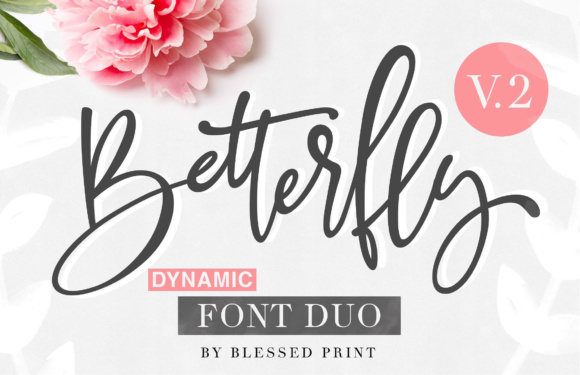
Introducing BetterFly 2 Font, the epitome of elegance and sophistication in the world of script fonts. Created by the talented team at Blessed Print, this dynamic and modern calligraphy font is all you need to elevate your design game to new heights.
With its playful and feminine look, BetterFly 2 Font is perfect for capturing the essence of special occasions like wedding invitations and anniversaries. Imagine the enchanting beauty it will add to your heartfelt messages, making your loved ones feel truly cherished. Let the strokes of this captivating font dance across the page, leaving a lasting impression on anyone who lays eyes on it.
But that's not all – BetterFly 2 Font is not just limited to personal celebrations. It's also the ideal choice for bloggers and businesses looking to create a strong visual identity. Its graceful curves and swooping lines effortlessly draw attention, ensuring that your content stands out from the crowd. Whether you're crafting a stunning logo or designing eye-catching graphics, this font will be your secret weapon.
What sets BetterFly 2 Font apart from the rest is its extensive collection of integrated and individual swashes. These artistic embellishments add a touch of flair and versatility to your designs, taking them to the next level. Each swash is carefully crafted to complement the font's overall aesthetic, giving you endless creative possibilities. Let your imagination run wild as you experiment with different combinations, and watch your designs come to life like never before.
Embrace the power of BetterFly 2 Font and let it unleash your creativity. Its captivating charm will effortlessly captivate your audience, leaving them in awe of your impeccable taste. Whether you're a seasoned designer or just starting your creative journey, this font is a must-have in your toolkit.